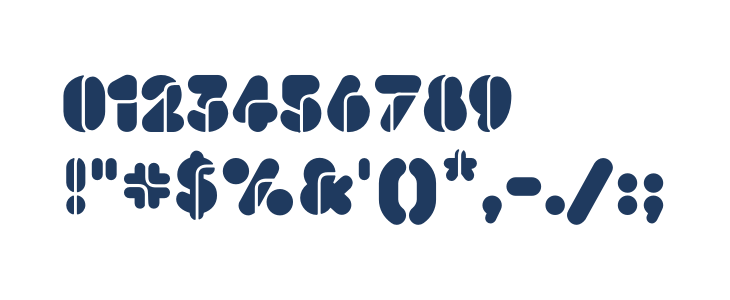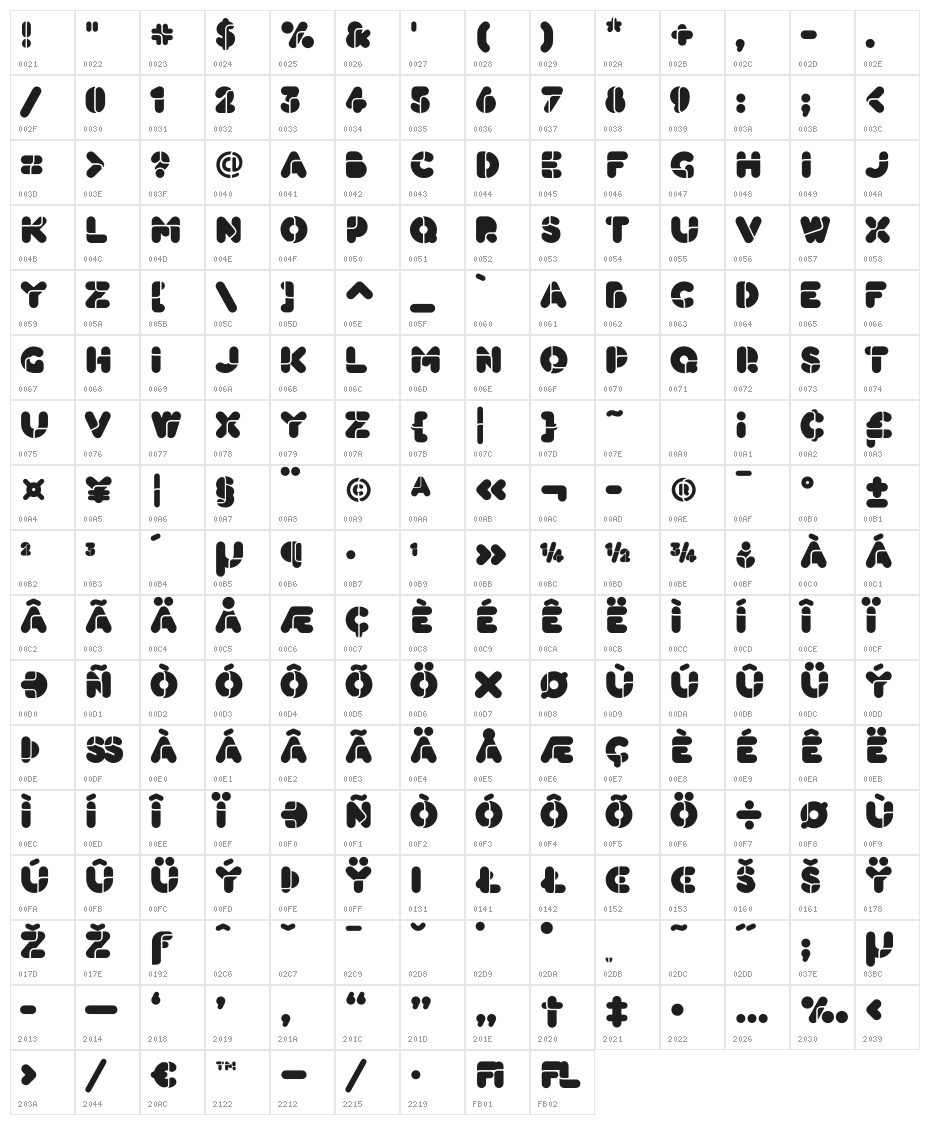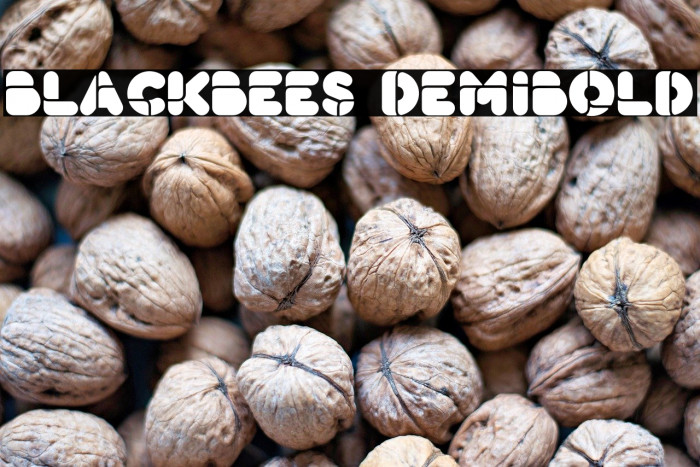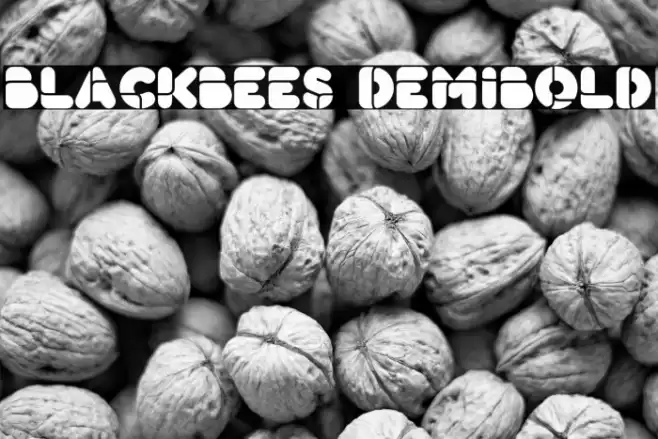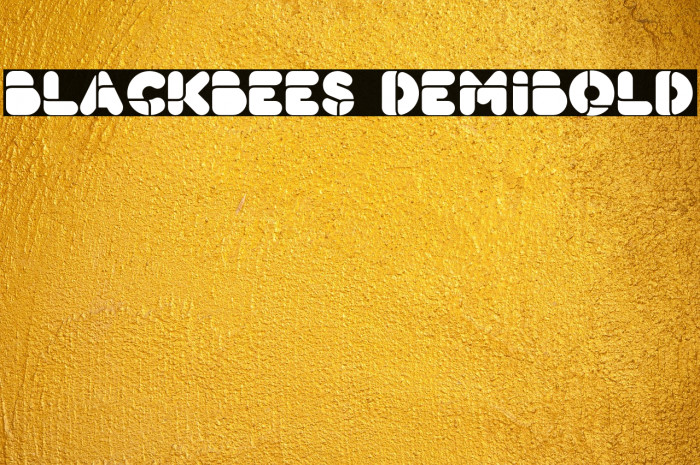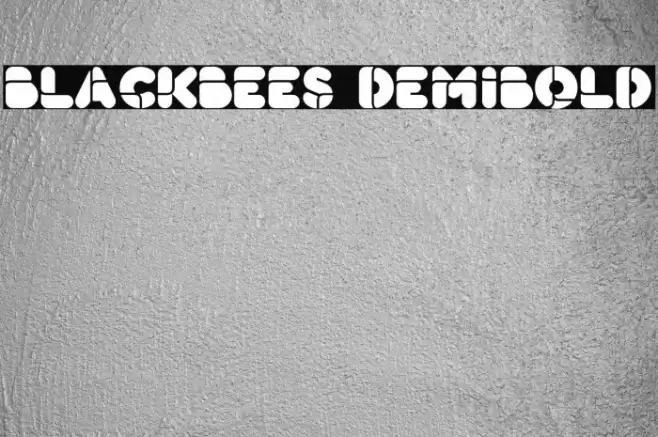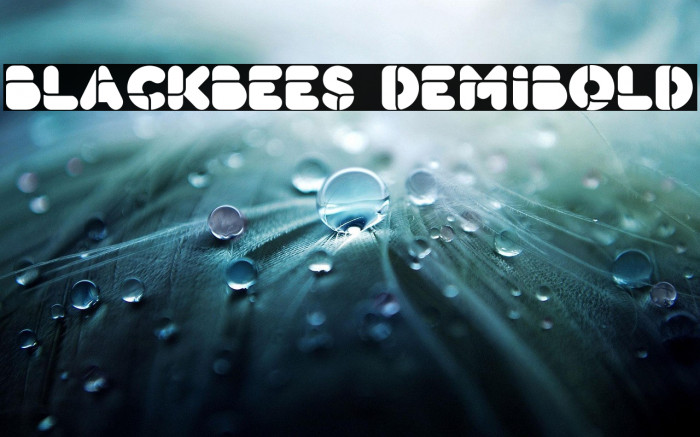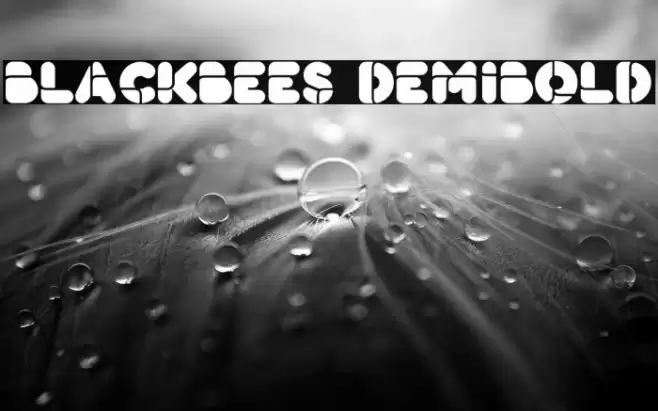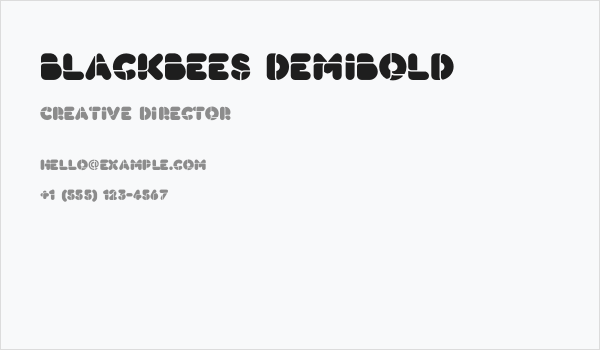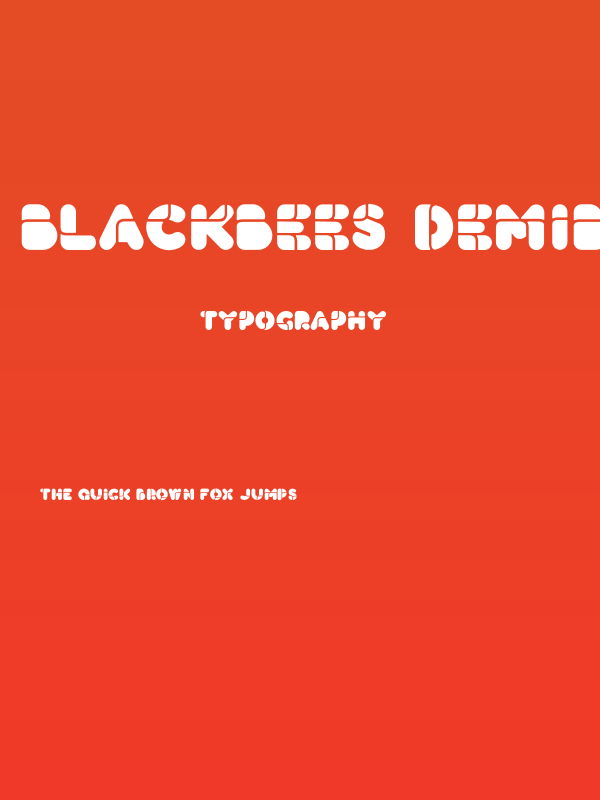
BlackBees DemiBold Font
BlackBees DemiBold Description
This font features a bold, geometric style with a distinct, modern aesthetic. The characters are composed of thick, rounded shapes with strategic cutouts, giving them a unique, segmented appearance. The overall design is highly stylized, making it stand out with its futuristic and innovative look. The uppercase and lowercase letters maintain a consistent weight and style, ensuring uniformity across the typeface. Numbers and special characters follow the same design principles, providing a cohesive visual experience. This font's boldness and distinctiveness make it ideal for eye-catching designs.